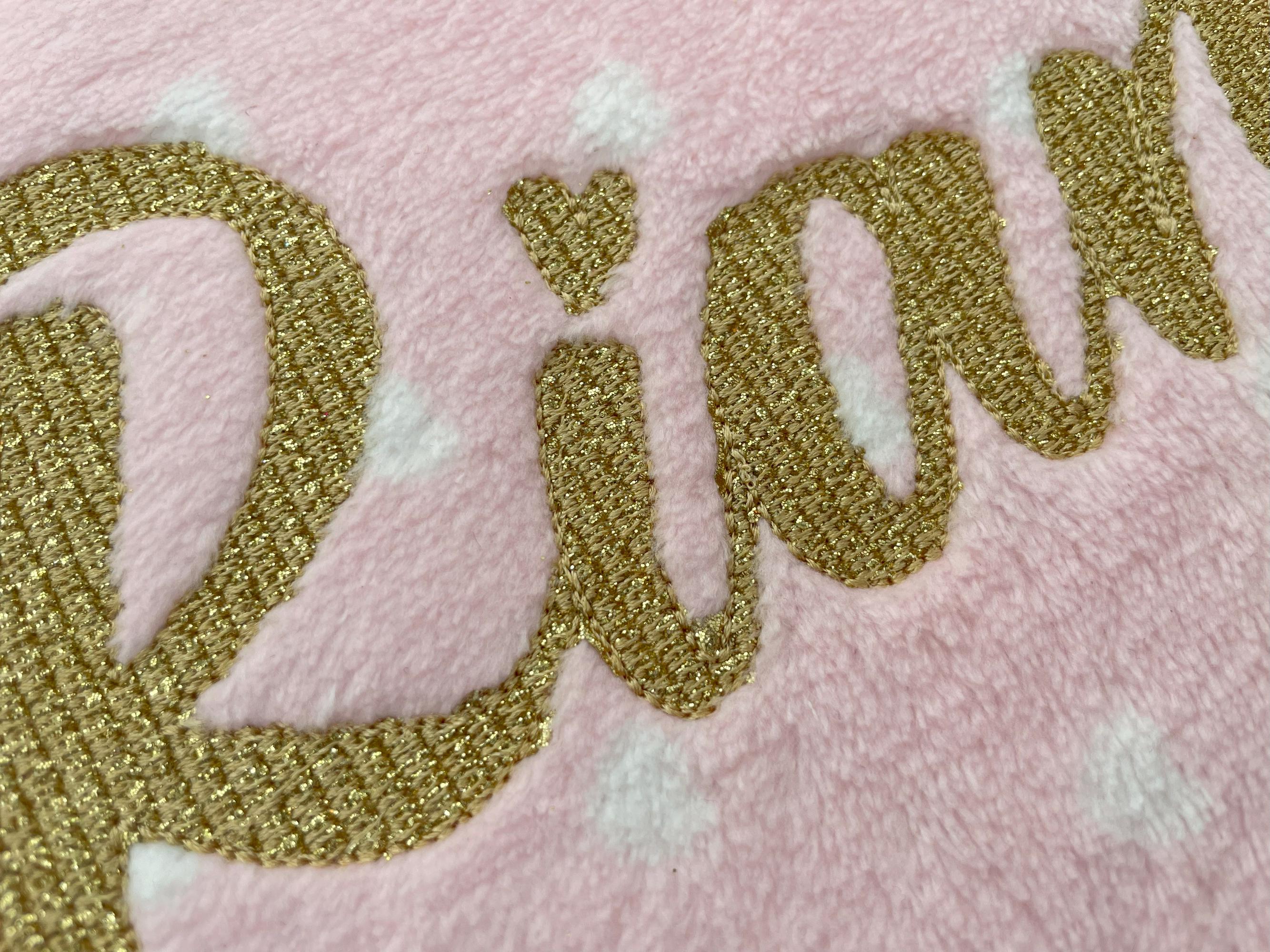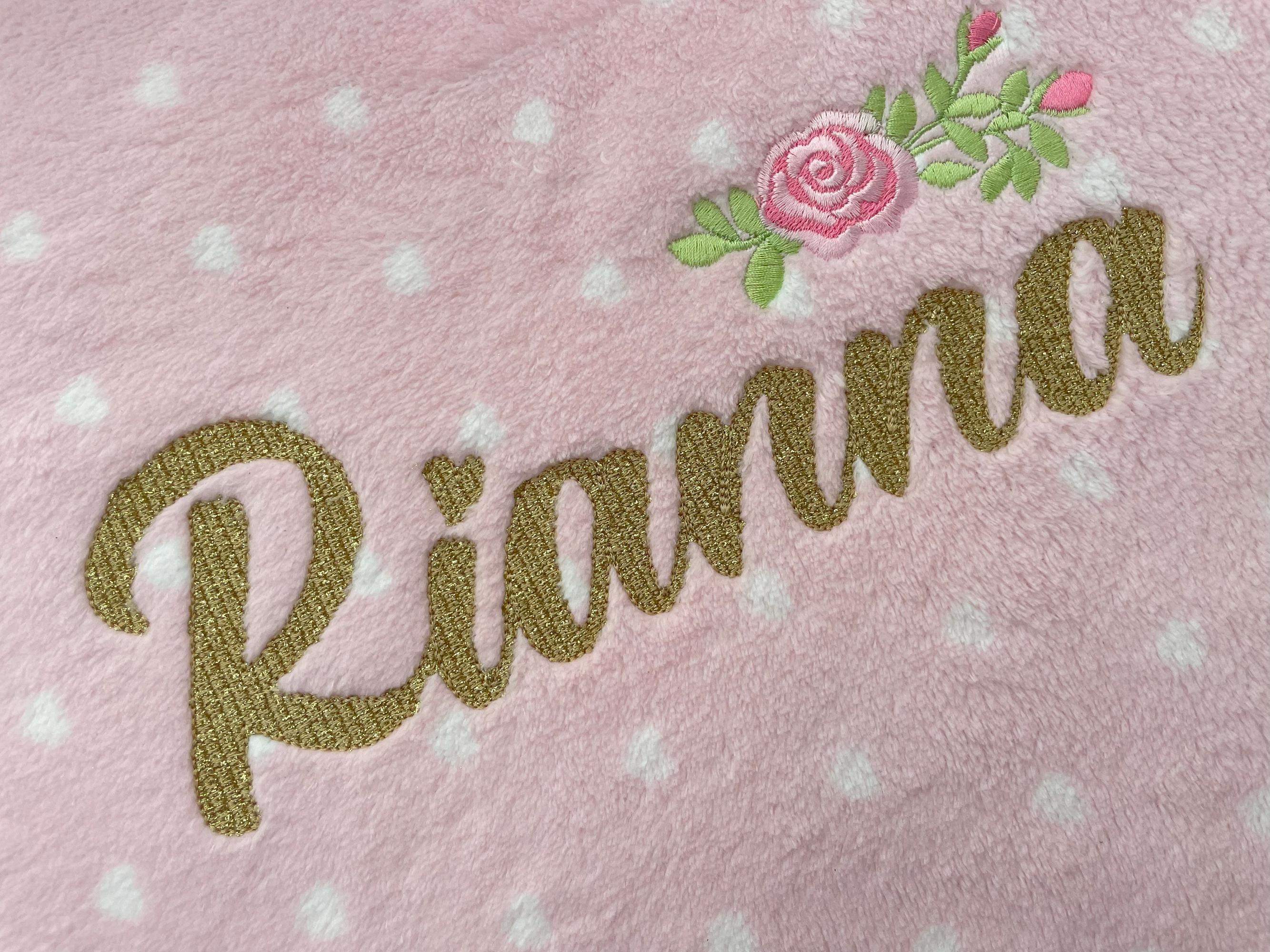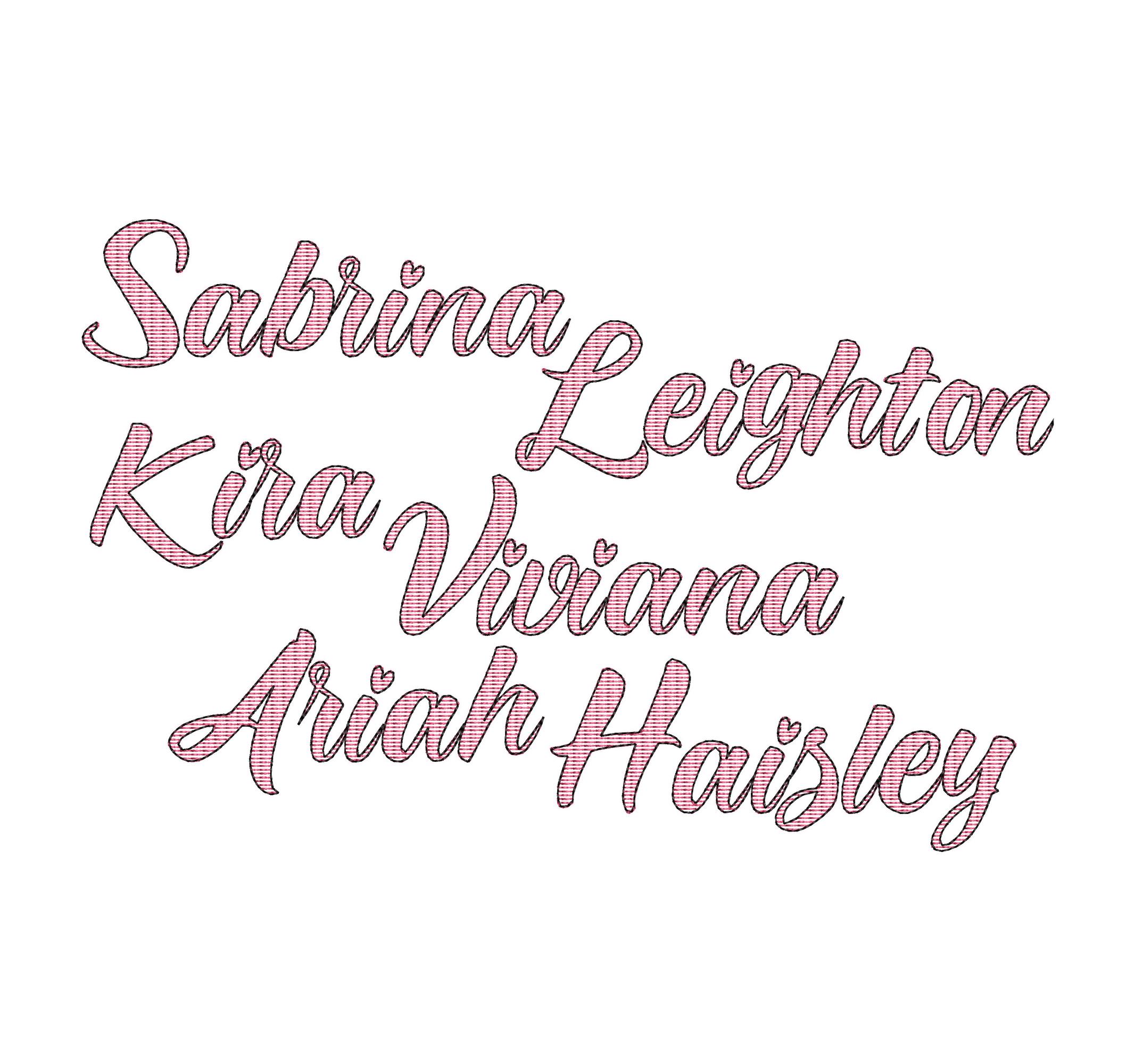
Light stitch or golden metallic thread FONT light sketch outline HTV glitter vinyl Monogram alphabet letters machine embroidery designs
Whole alphabet: uppercase, lowercase, numbers and punctuation.
Use HTV glitter vinyl as an applique fabric, and you get an awesome result!